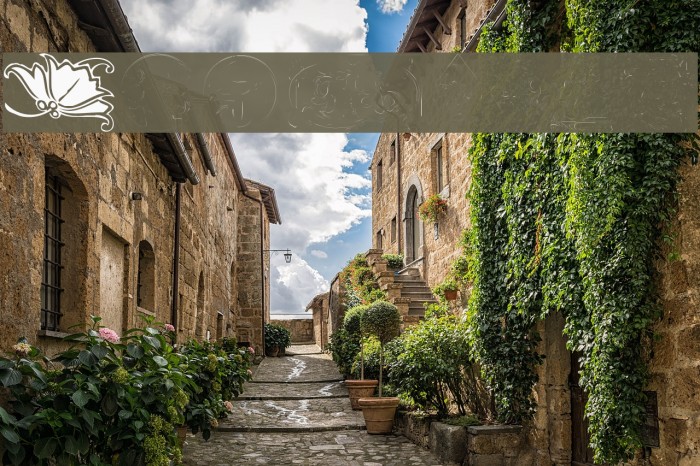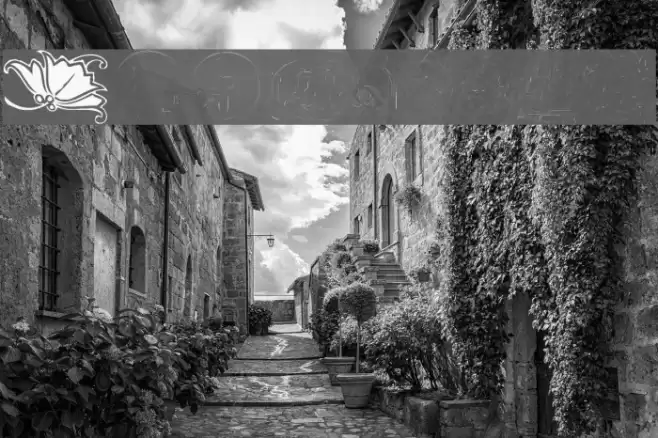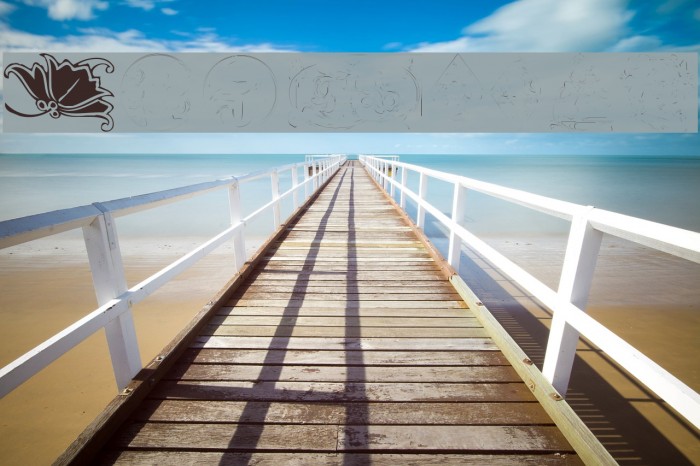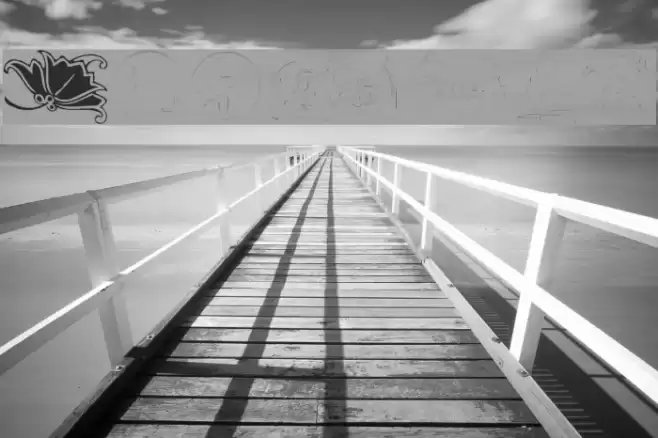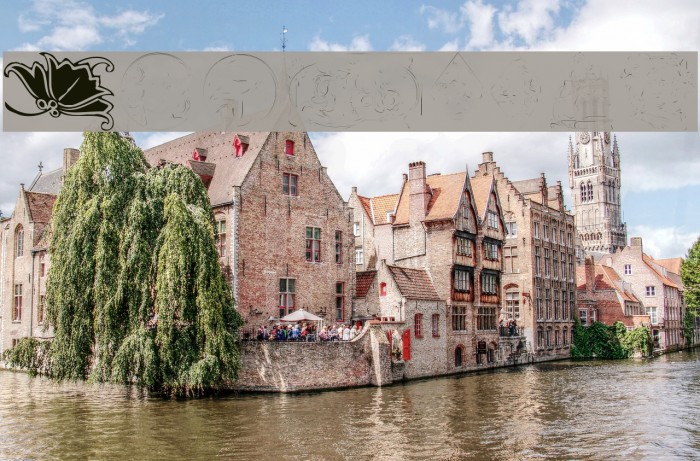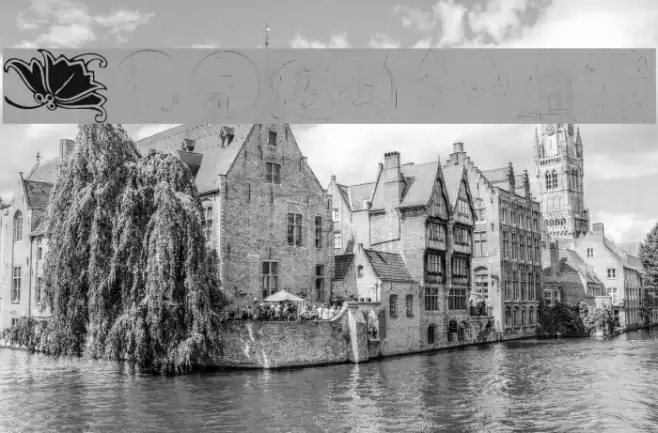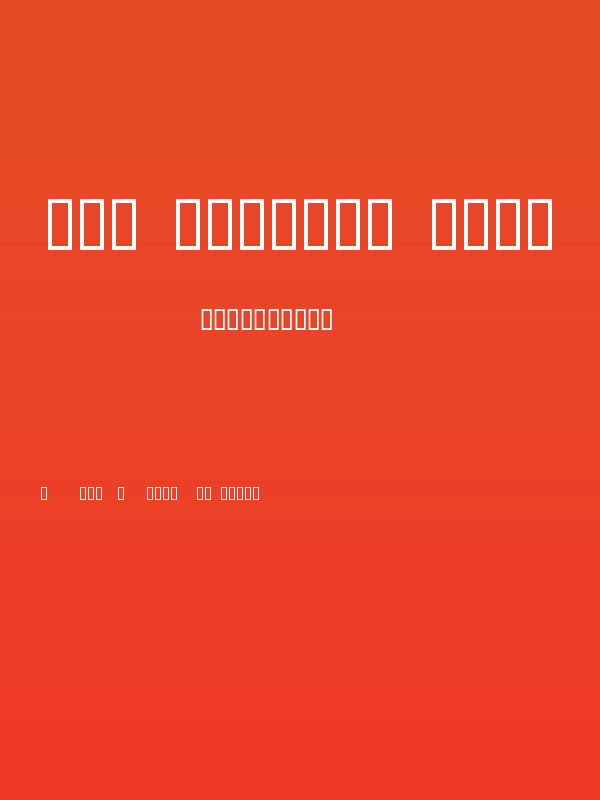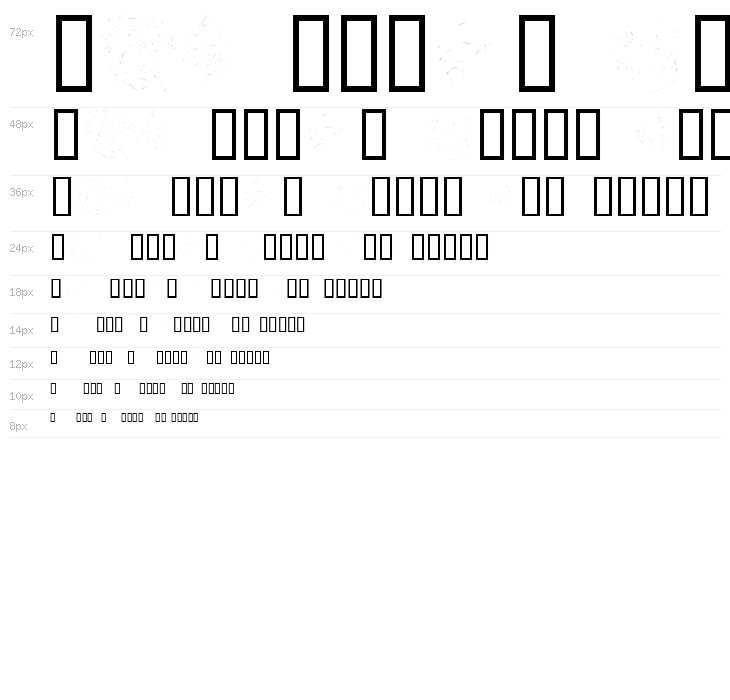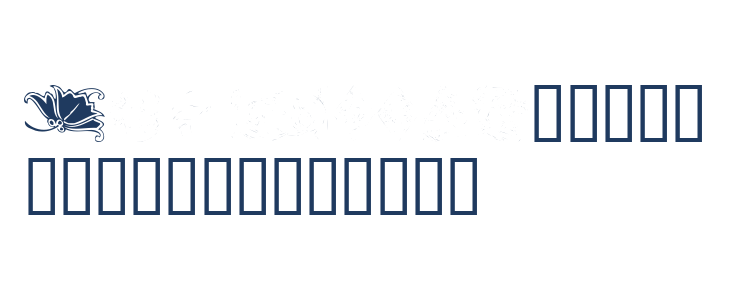
Art Nouveau Bild Font
Art Nouveau Bild Description
This font embodies the elegance and intricate detailing characteristic of the Art Nouveau movement. It features flowing, organic lines and elaborate curves that evoke a sense of natural beauty and artistic flair. The characters are adorned with decorative elements, giving them a unique and ornate appearance. This style is reminiscent of the late 19th and early 20th centuries, capturing the essence of artistic expression and creativity. The font's elaborate design makes it ideal for projects that require a touch of sophistication and historical charm.
| Use Case | Logos, Decorative headings, Invitations |
| Proposed Projects | Ideal for vintage-themed posters, invitations, and branding that requires an elegant and historical touch. |